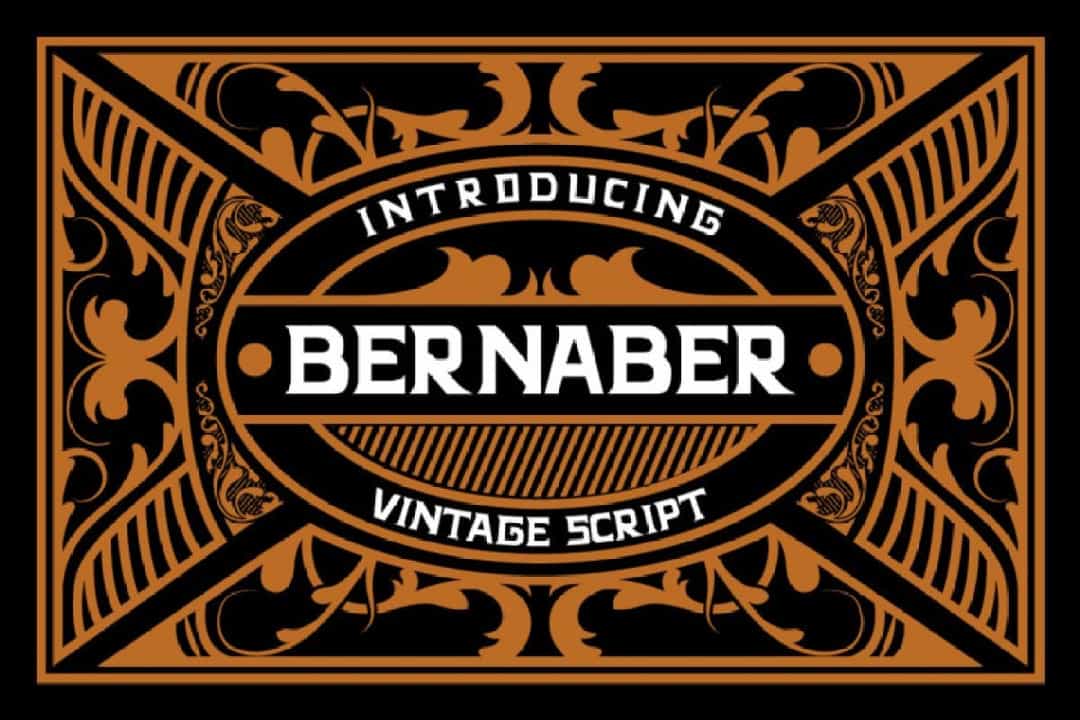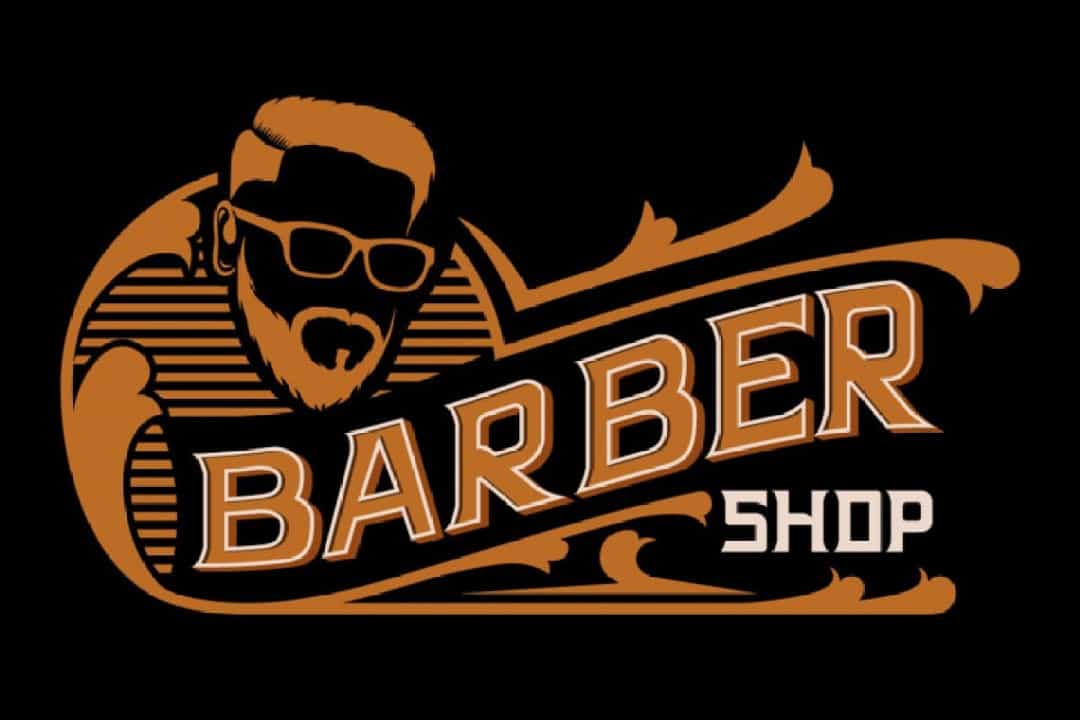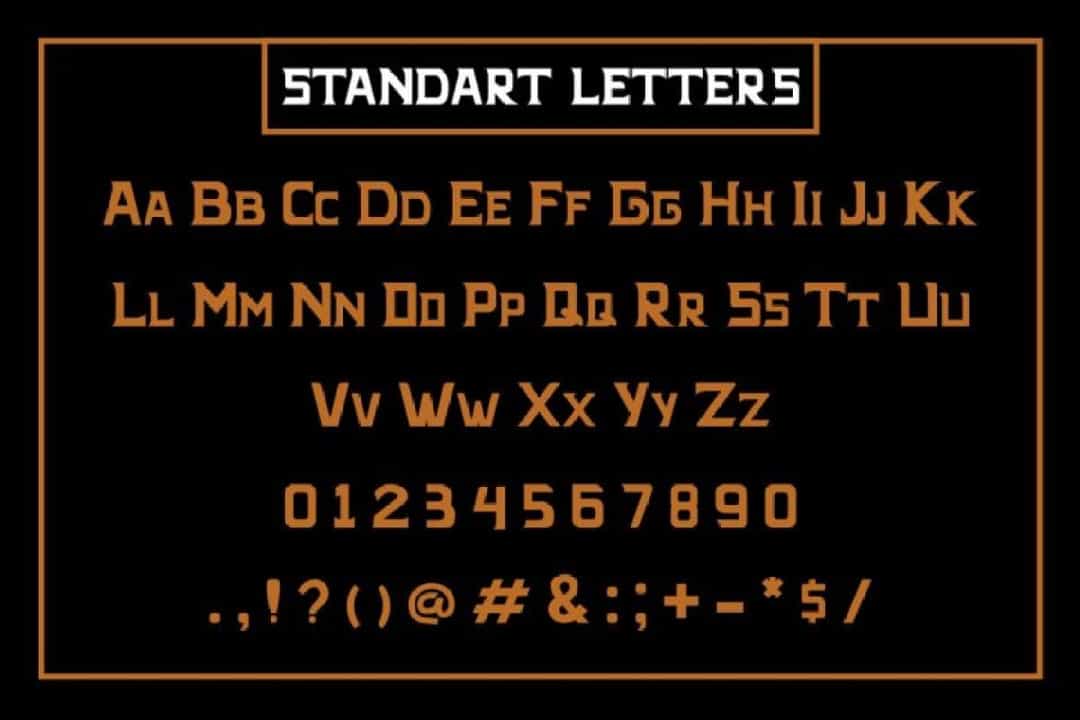
Bernaber is a modern display font with the inspiration of the retro style. Rossitta should be used for logo designs, wedding designs branding, social media posts packaging for products T-shirt labels, product designs, photo watermark invitations, stationery and many more – include it in your designs.